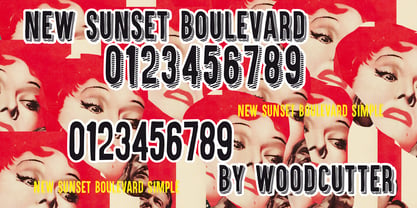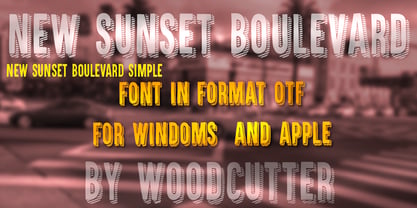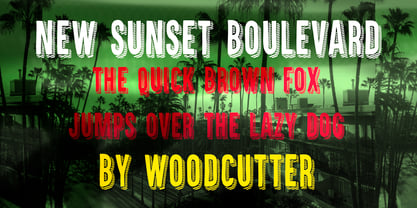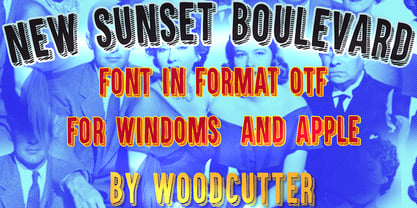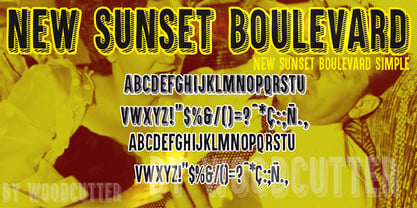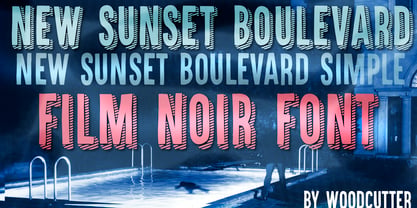
New Sunset Boulevard
von Woodcutter
Die Schriftfamilie New Sunset Boulevard wurde von Jordi Manero entworfen und von Woodcutter veröffentlicht. New Sunset Boulevard enthält 2 Stile. Mehr über diese Familie
New Sunset Boulevard is a typeface family that reimagines the retro spirit of the original Sunset Boulevard, a font also created by me, pushing it into a more organic, imperfect, and expressive direction. Designed in uppercase with full accent support, this version introduces hand-drawn strokes that break away from rigid structures, creating a more human, dynamic, and approachable feel.
The letterforms feature subtle irregularities that mimic the gesture of manual drawing, producing a lively and authentic visual rhythm. One of its most distinctive features is the right-side shadow, built with hatched lines that evoke vintage printing techniques and handcrafted signage. This detail not only adds depth but also reinforces its retro identity, recalling classic posters, old cinema, and mid-20th-century graphic aesthetics.
The family includes two complementary styles. New Sunset Boulevard showcases the letters with their signature hatched shadow, creating a rich, decorative, and personality-driven visual effect, ideal for eye-catching headlines and nostalgic compositions.
In contrast, New Sunset Boulevard Simple offers a cleaner and more direct version, removing the shadow and presenting solid letterforms. This variant retains the core structure while improving versatility and readability for more functional uses.
Perfect for branding, posters, editorial design, and projects seeking a retro aesthetic reinterpreted with a contemporary edge.
Designer: Jordi Manero
Foundry: Woodcutter